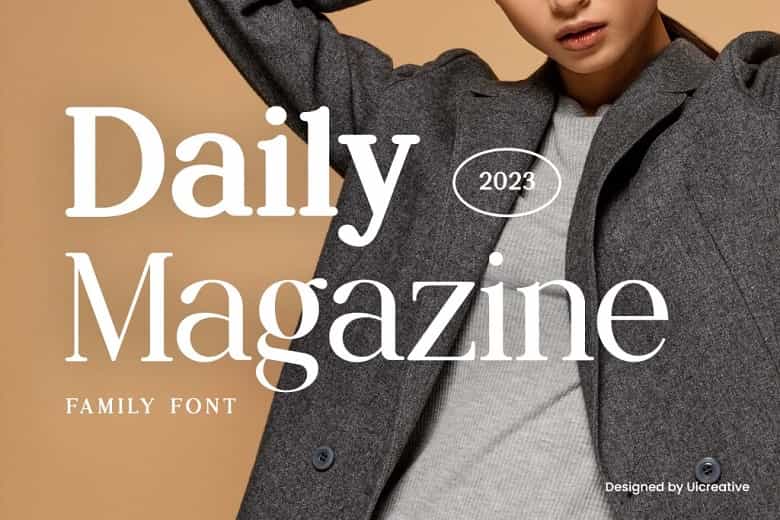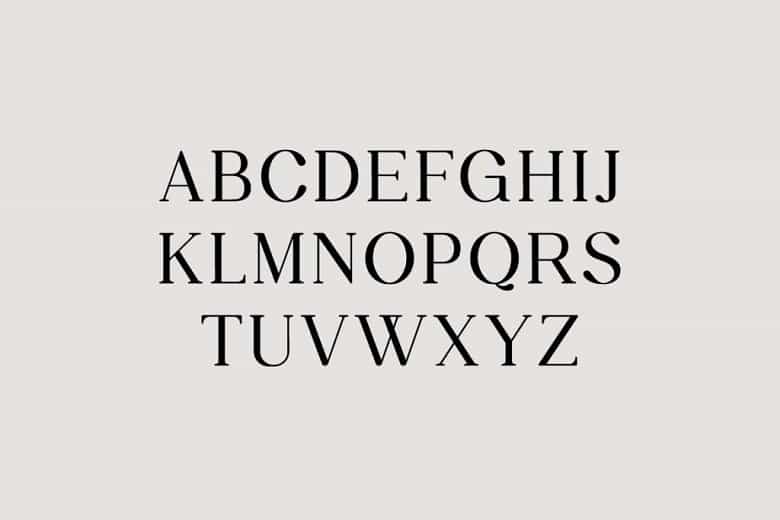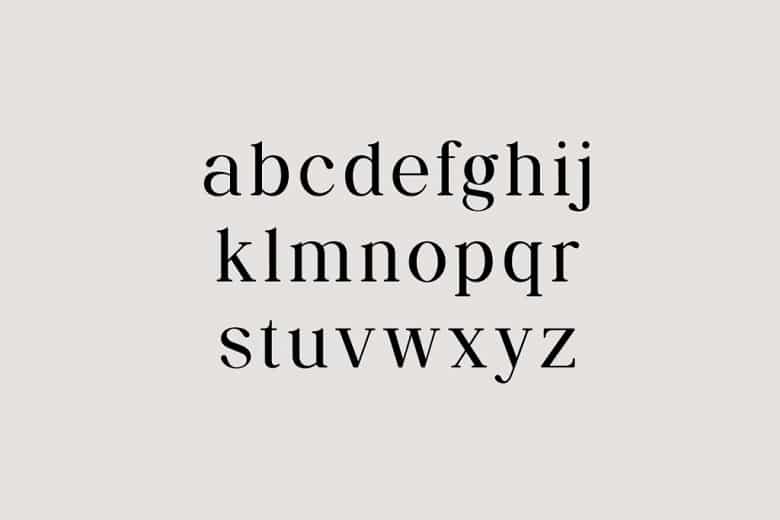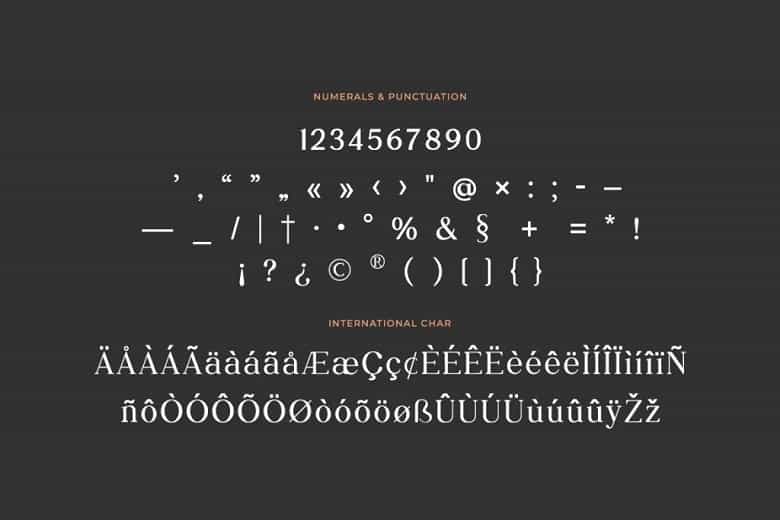
Daily Magazine is an elegant serif font family. This font is perfect for stationery, logo, wedding, magazine or book covers, website headers, branding and many more. Also, the fashion related branding or editorial design has both the masculine and the feminine aspect.